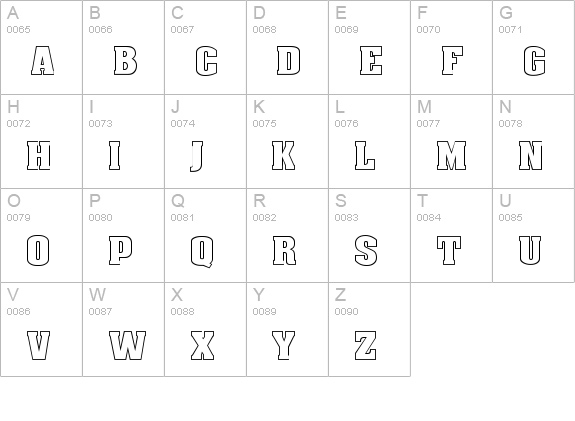
DG_AachenOutline Font Details
Introducing DG_AachenOutline font, a modern and stylish typeface that brings a touch of sophistication to your design projects. This unique font features clean lines and sharp edges, making it perfect for a variety of applications such as branding, logos, posters, and more. DG_AachenOutline is a versatile font that can be used for both headers and body text, adding a contemporary flair to any design. Its sleek and elegant appearance will make your projects stand out from the crowd. Best of all, DG_AachenOutline font is completely free to download at FontsMarket.com. Take advantage of this fantastic offer and elevate your designs with this stunning typeface today!